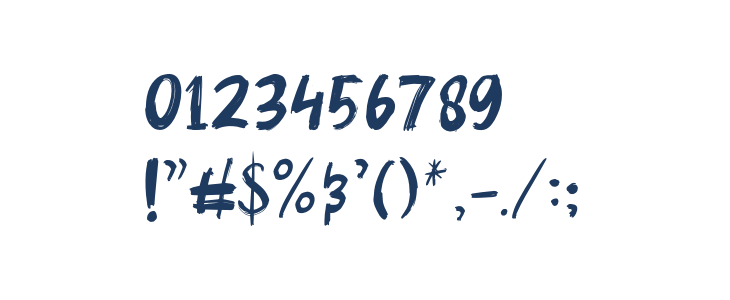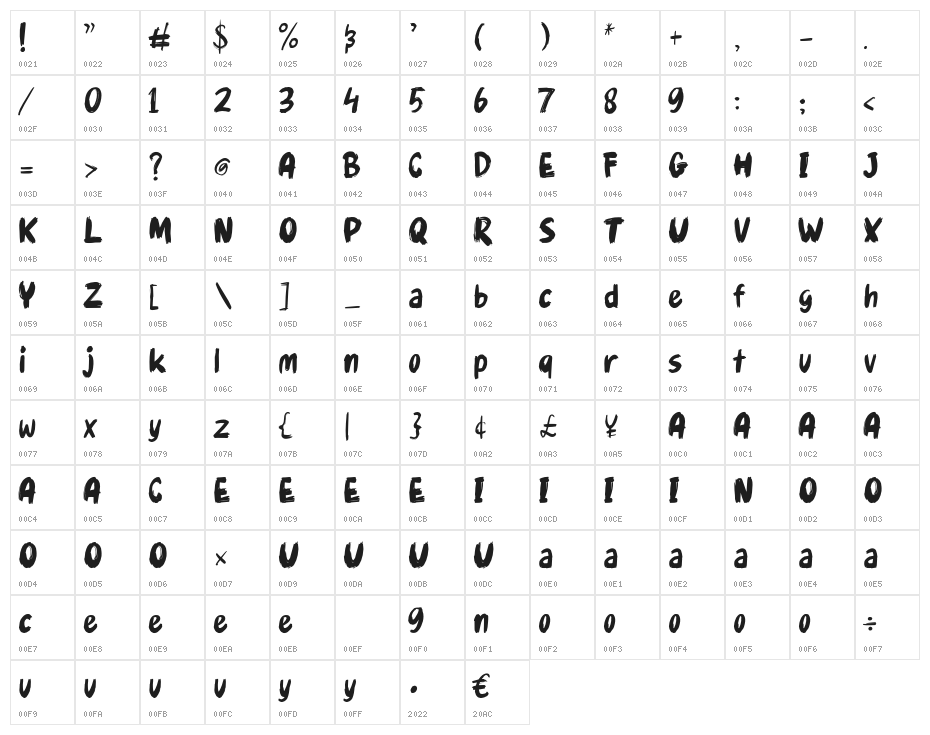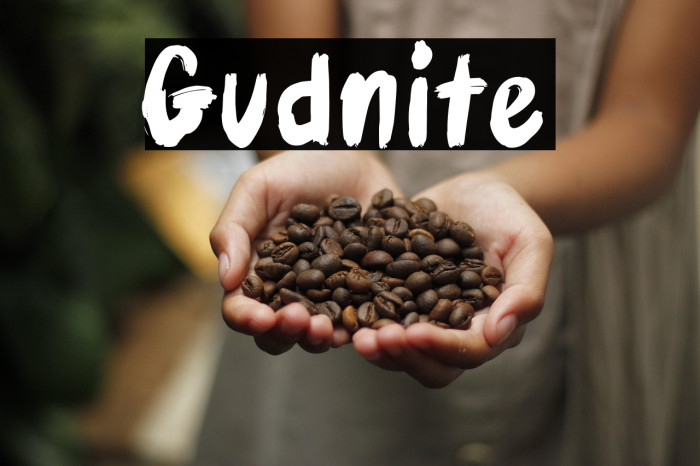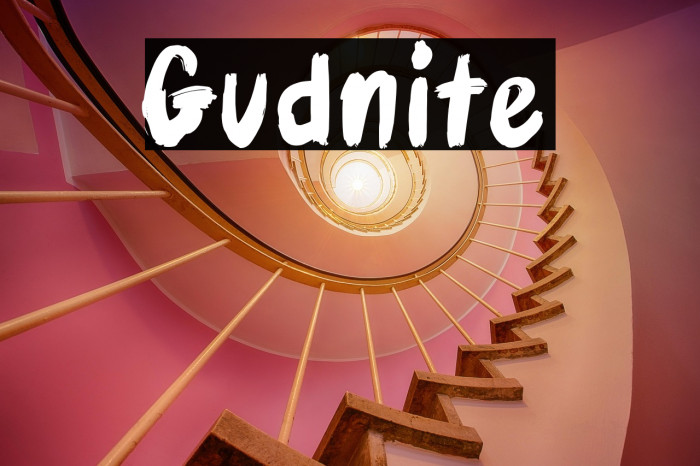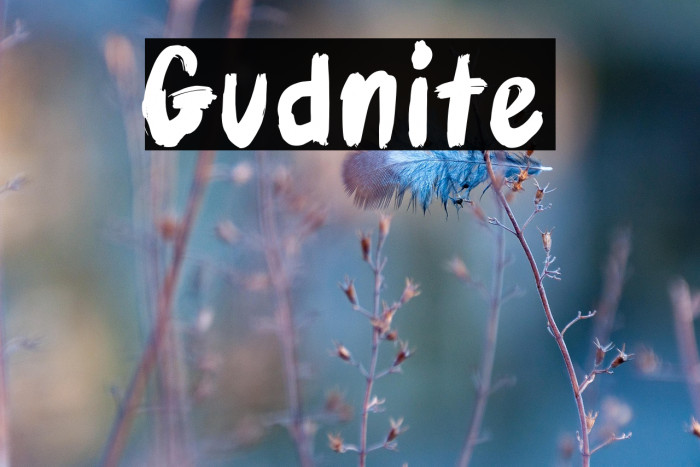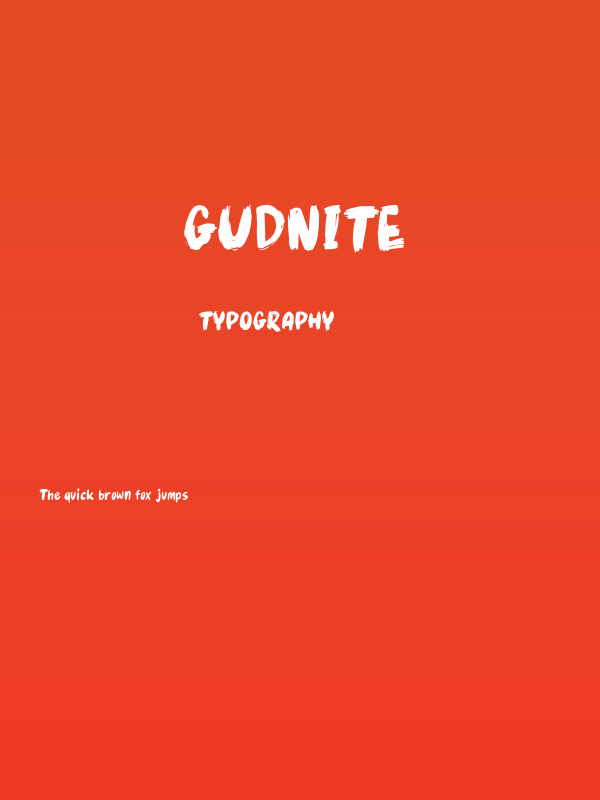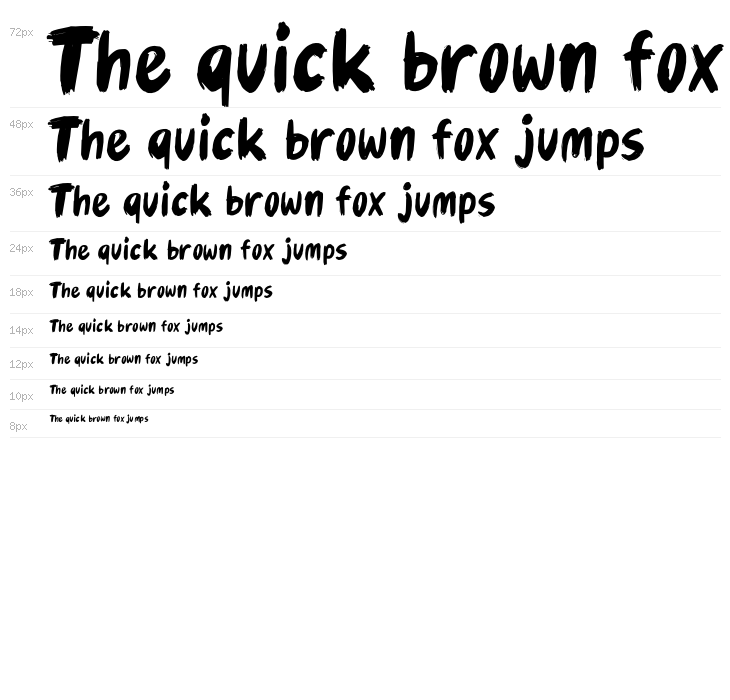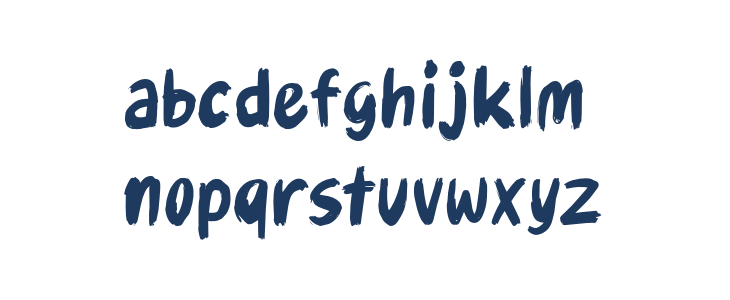
Gudnite Font
Gudnite Description
This font features a bold, expressive brush style that exudes energy and dynamism. The strokes are thick and uneven, giving it a hand-painted appearance that is both artistic and informal. Each character is distinct, with a slightly rough texture that adds to its handcrafted feel. The uppercase and lowercase letters maintain a consistent style, while the numerals and special characters are equally bold and impactful. This font is perfect for projects that require a personal touch or a creative flair, making it ideal for artistic designs, posters, and branding that aims to stand out.
| Overall Style | Artistic, Energetic, Handcrafted |
| Use Case | Headlines, Posters, Branding |
| Proposed Projects | Ideal for posters, artistic designs, branding, and any project needing a creative touch. |